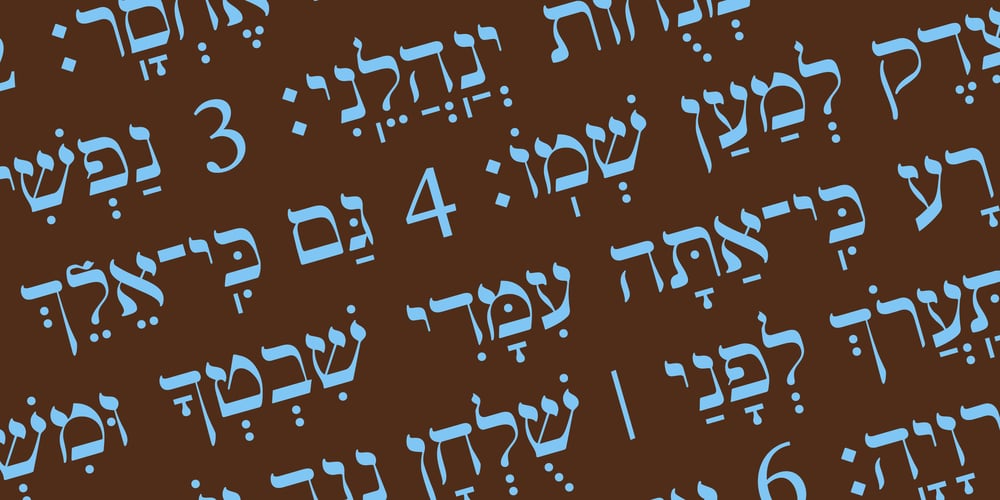
Hebrew Modern Font Family was designed by Sami Artur Mandelbaum and published by Samtype. Hebrew Modern contains 2 styles and family package options. This is a classic design from the beginning of the 20th century.This font can be used in many kinds of books